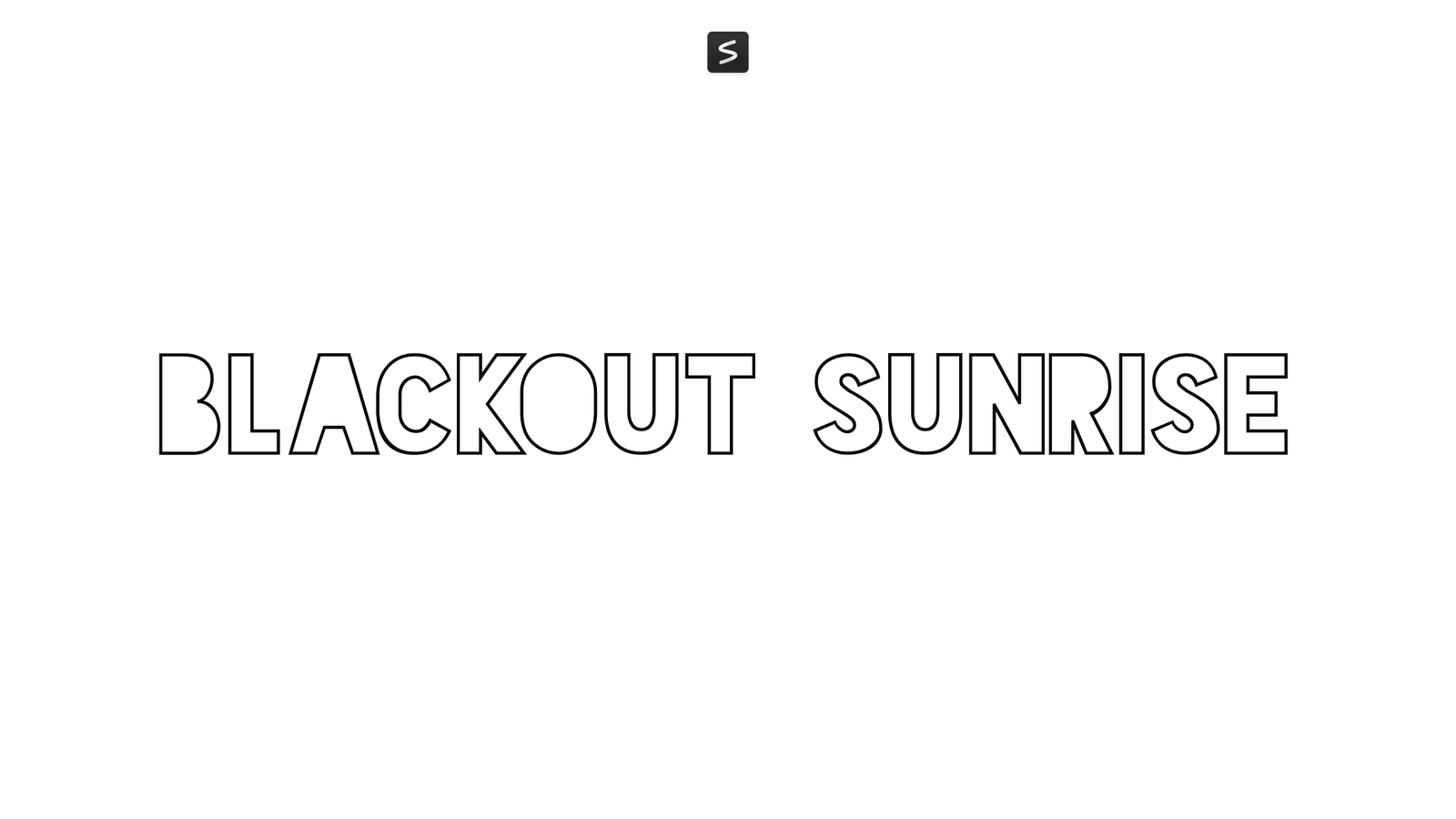
Blackout Sunrise is a geometric sans-serif designed by Tyler Finck. Its distinctive outline letterforms create a linear, minimalist look that reads as both clean and visually confident. The characters are built from simple strokes, giving the font a contemporary edge without unnecessary ornament.
The typeface works well for projects that need clarity with presence: logotypes, headlines, posters, album covers, and branding. Its geometric construction makes it legible at various sizes while maintaining a modern, understated personality. Whether set large for impact or smaller for body text in display contexts, Blackout Sunrise brings a straightforward, structural quality to contemporary design work.